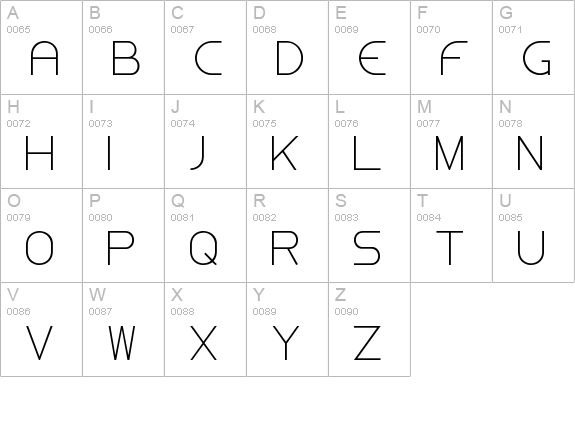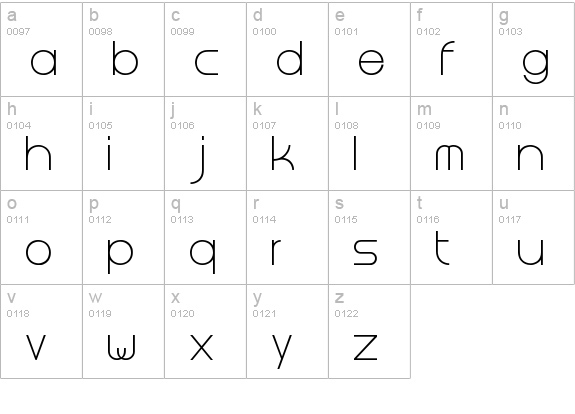
Steiner Light Font Details
Steiner Light is a refined, elegant variant in the Steiner typeface family \xE2\x80\x94 well suited to elegant body text, refined sub-headings, and luxury branding.
Introducing Steiner Light Font, a beautifully crafted typeface that exudes elegance and sophistication. This font is perfect for adding a touch of refinement to any design project, whether it's a logo, branding material, or editorial layout. Steiner Light Font showcases a delicate balance between modernity and classic appeal, making it a versatile choice for both contemporary and traditional designs. Its clean lines and graceful curves create a sense of harmony and balance, while its subtly rounded edges add a touch of softness and warmth. One of the most remarkable features of Steiner Light Font is that it is freely available to download at FontsMarket.com. This means that you can access this stunning typeface without any cost, making it a valuable asset for designers, creatives, and typographers alike. With its wide range of weights and styles, Steiner Light Font offers endless possibilities for creative expression. From thin and light variations that exude a sense of delicacy and grace to bolder options that command attention, this font allows you to effortlessly convey your message with style and clarity. Additionally, Steiner Light Font boasts extensive language support, ensuring that your designs can reach a global audience. Its carefully crafted letterforms ensure legibility and readability across various mediums, making it an excellent choice for both print and digital projects. Whether you're working on a professional project or a personal endeavor, Steiner Light Font is the perfect companion to bring your vision to life. Its timeless appeal and versatility make it a must-have addition to any designer's toolkit. So, why wait? Experience the beauty and functionality of Steiner Light Font today by downloading it for free at FontsMarket.com. Unleash your creativity and let this elegant typeface elevate your designs to new heights.